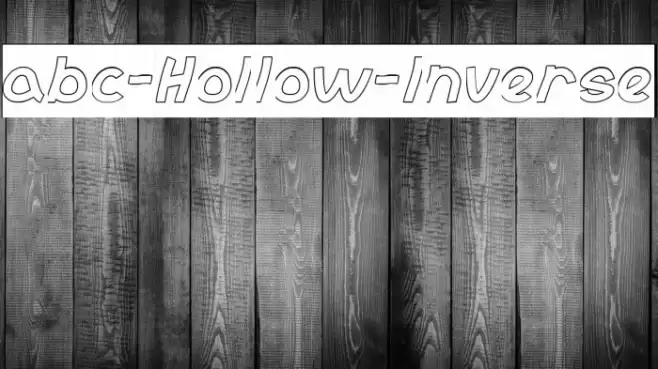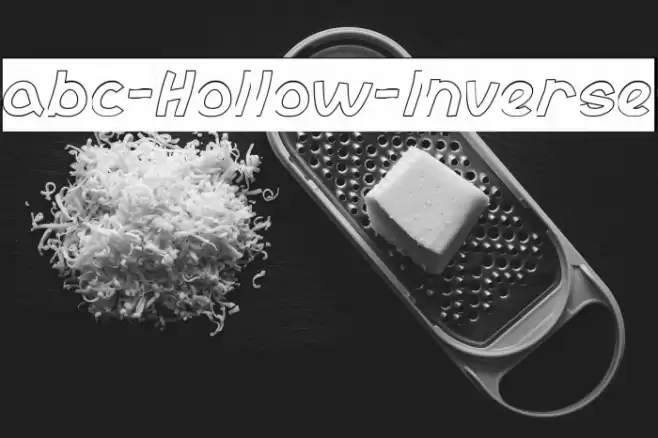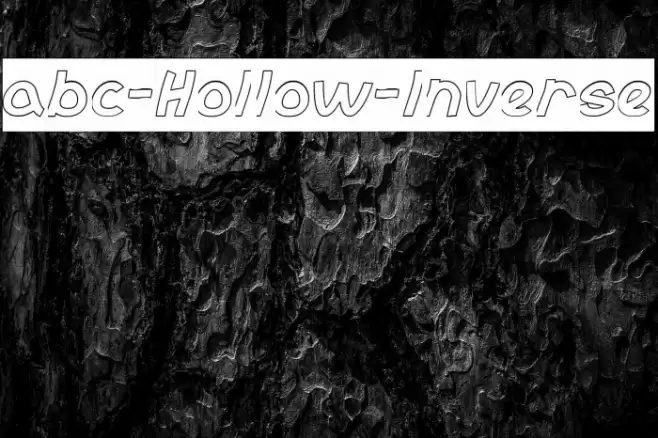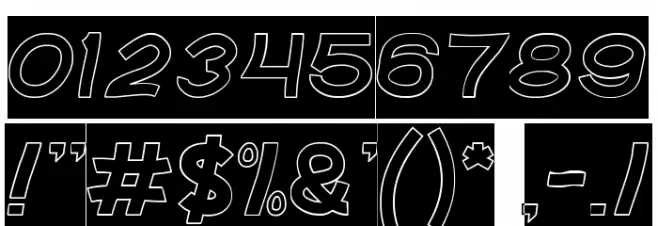
abc-Hollow-Inverse Font
abc-Hollow-Inverse Description
This font features a unique hollow design with an inverse style, where the letters are outlined and the interior is transparent. The uppercase and lowercase characters maintain a consistent style, with smooth, rounded edges that give a playful and modern appearance. The numerals and special characters follow the same design principles, ensuring uniformity across all glyphs. This font stands out due to its bold outlines and the absence of interior fill, making it ideal for creative and eye-catching designs. The overall aesthetic is both contemporary and versatile, suitable for a variety of applications.
A modern, hollow, inverse font with bold outlines and smooth, rounded edges from Uncategorized fonts.
- Proposed Projects: Ideal for creative projects such as posters, logos, and headlines where a bold and distinctive look is desired.